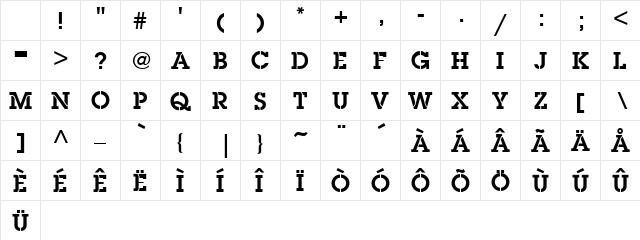
Pack'In is a composed and adaptable typeface that performs quietly and consistently across a wide range of design contexts.
Pro Tip: Use Pack'In in both headline and body roles to test its range before committing to a single application.